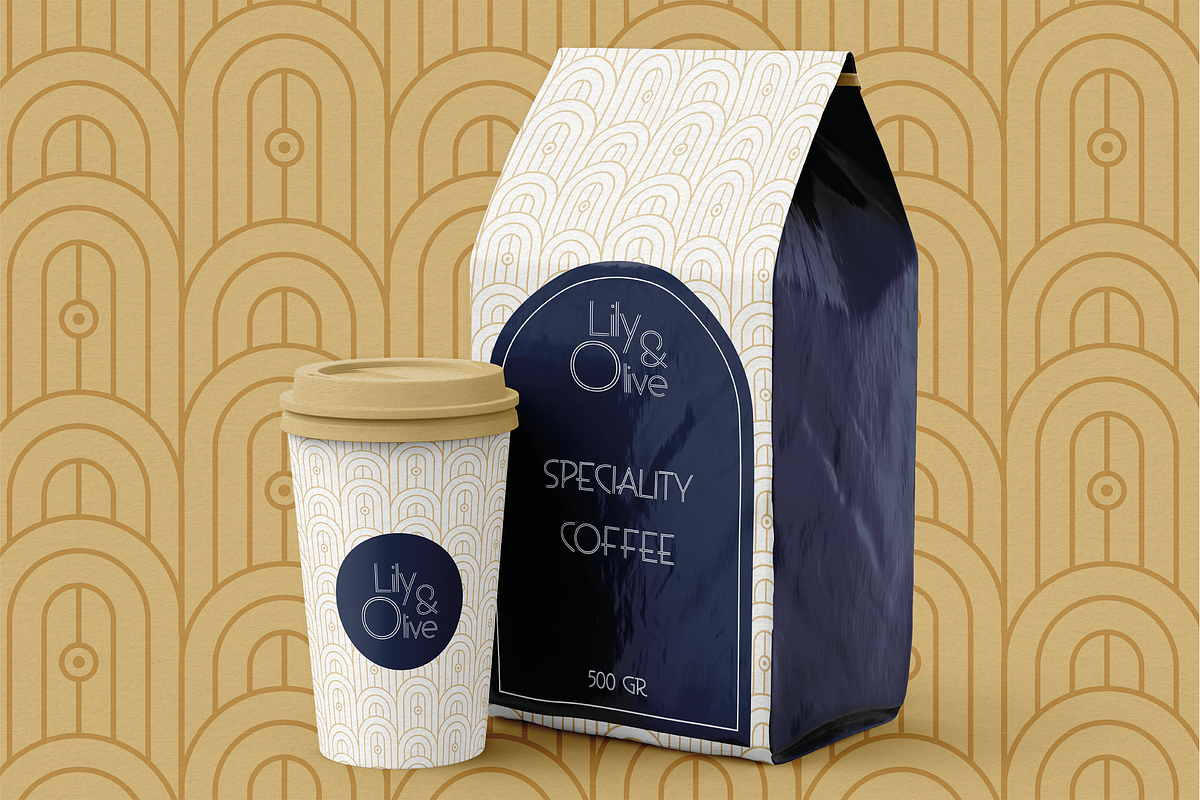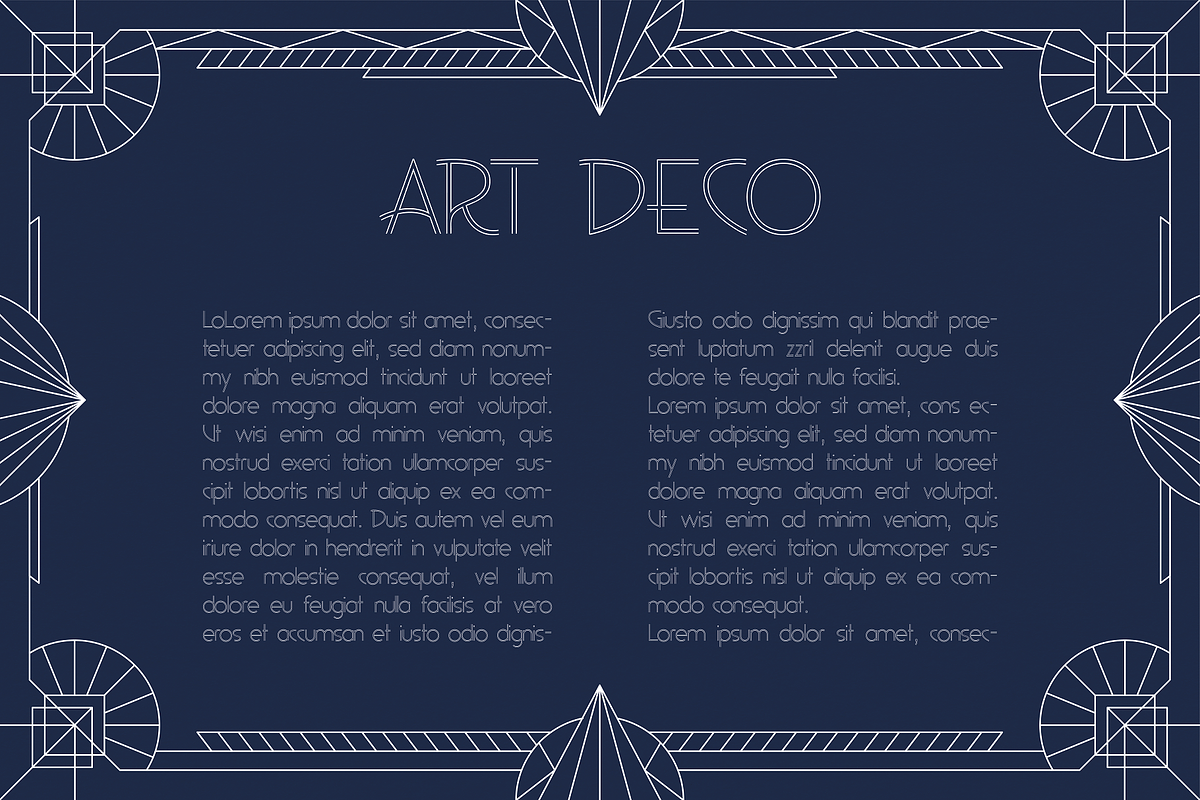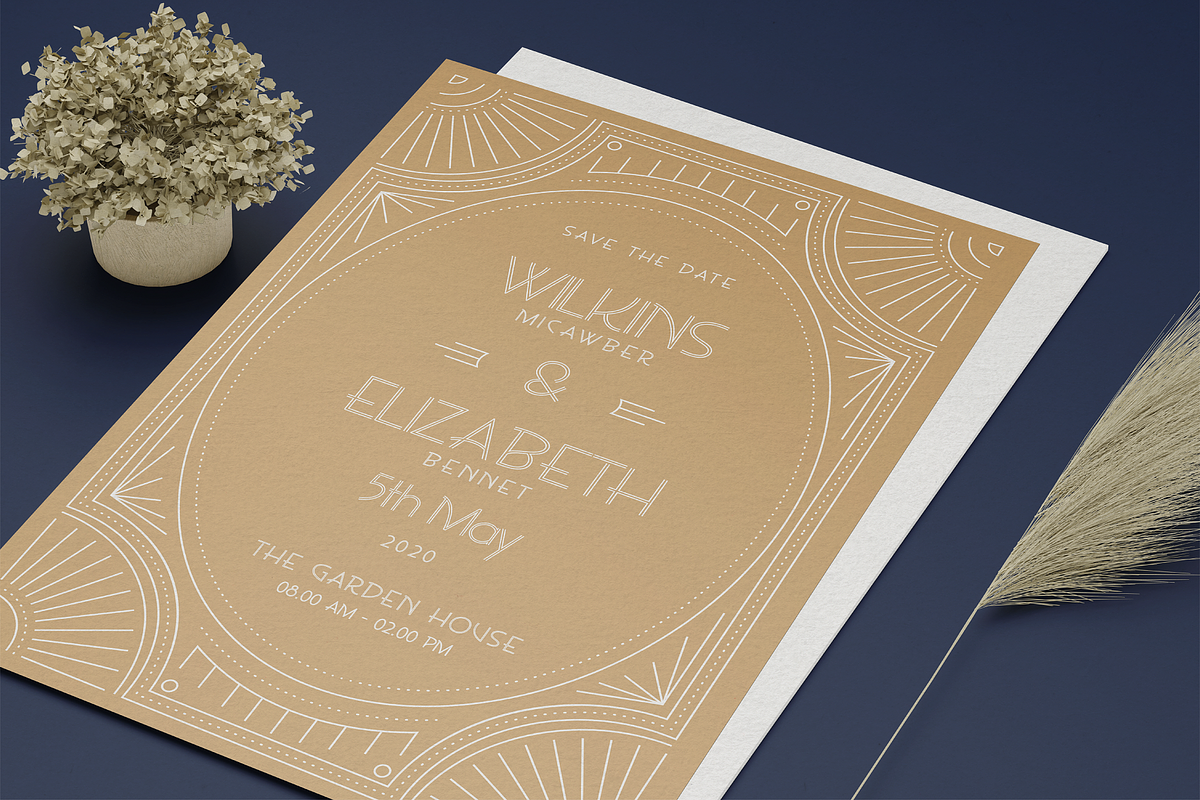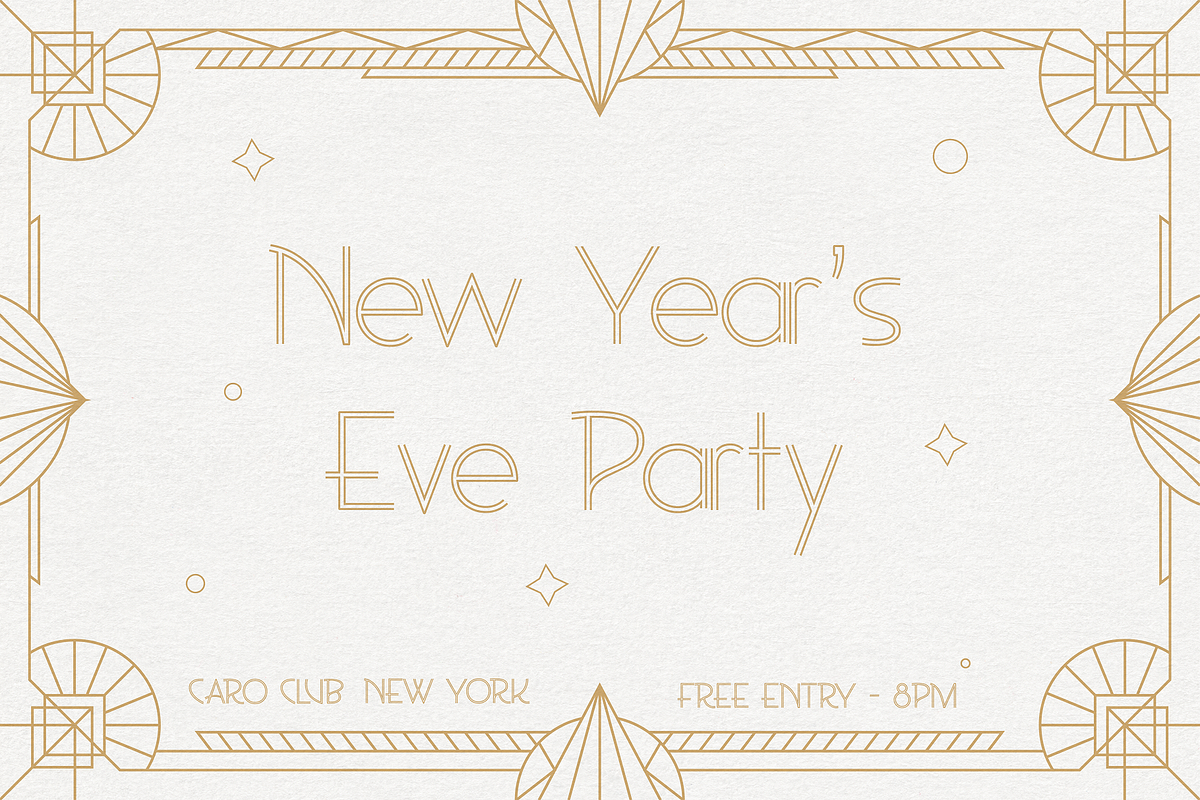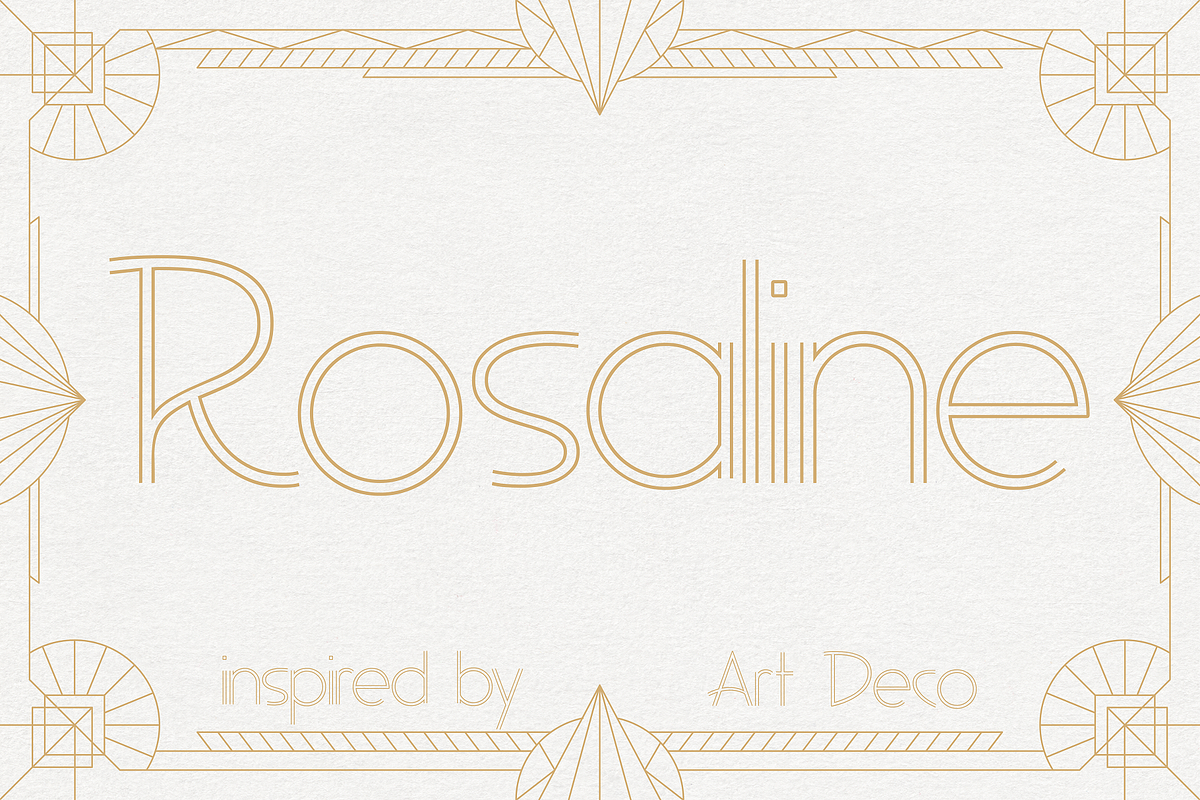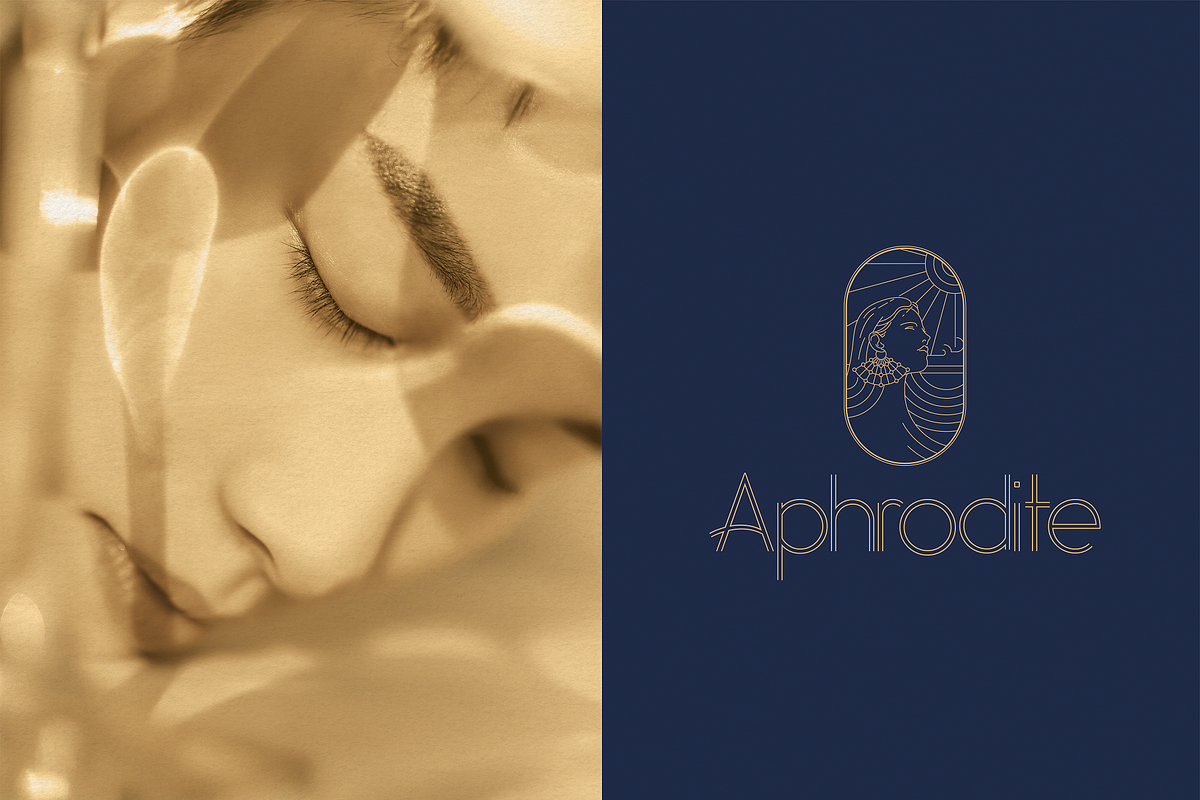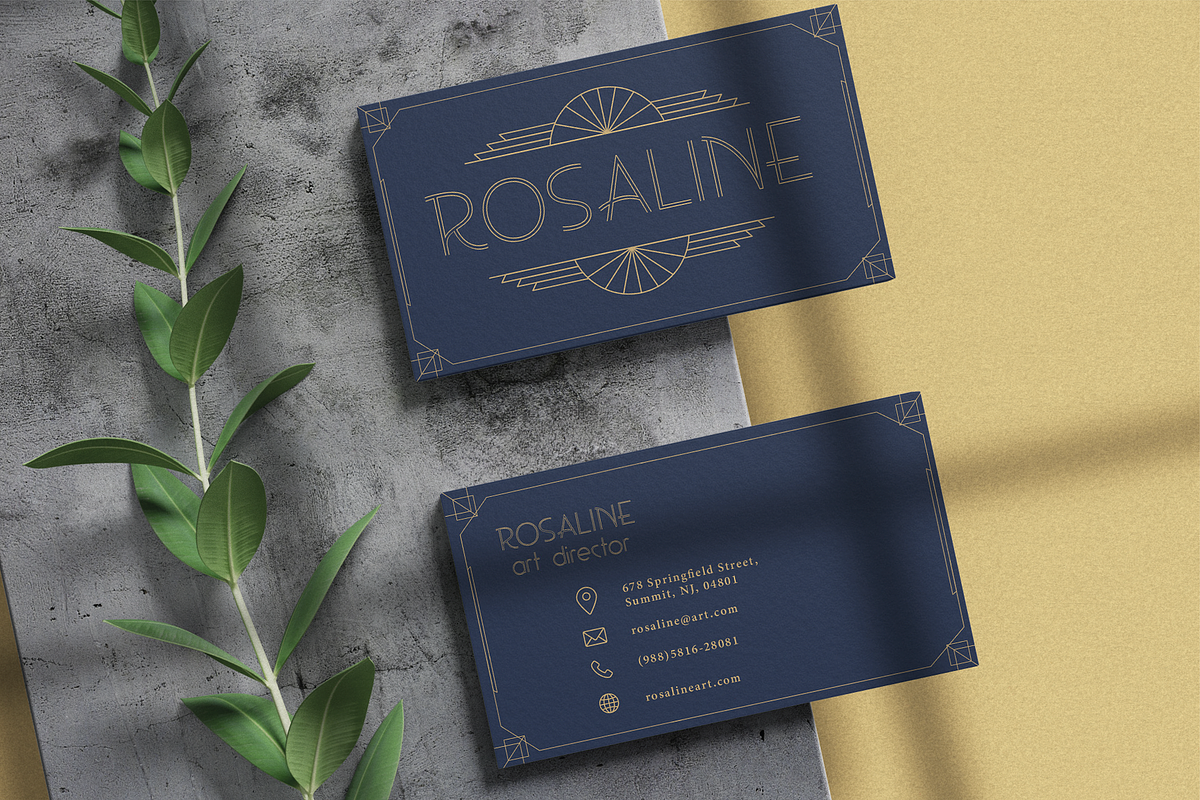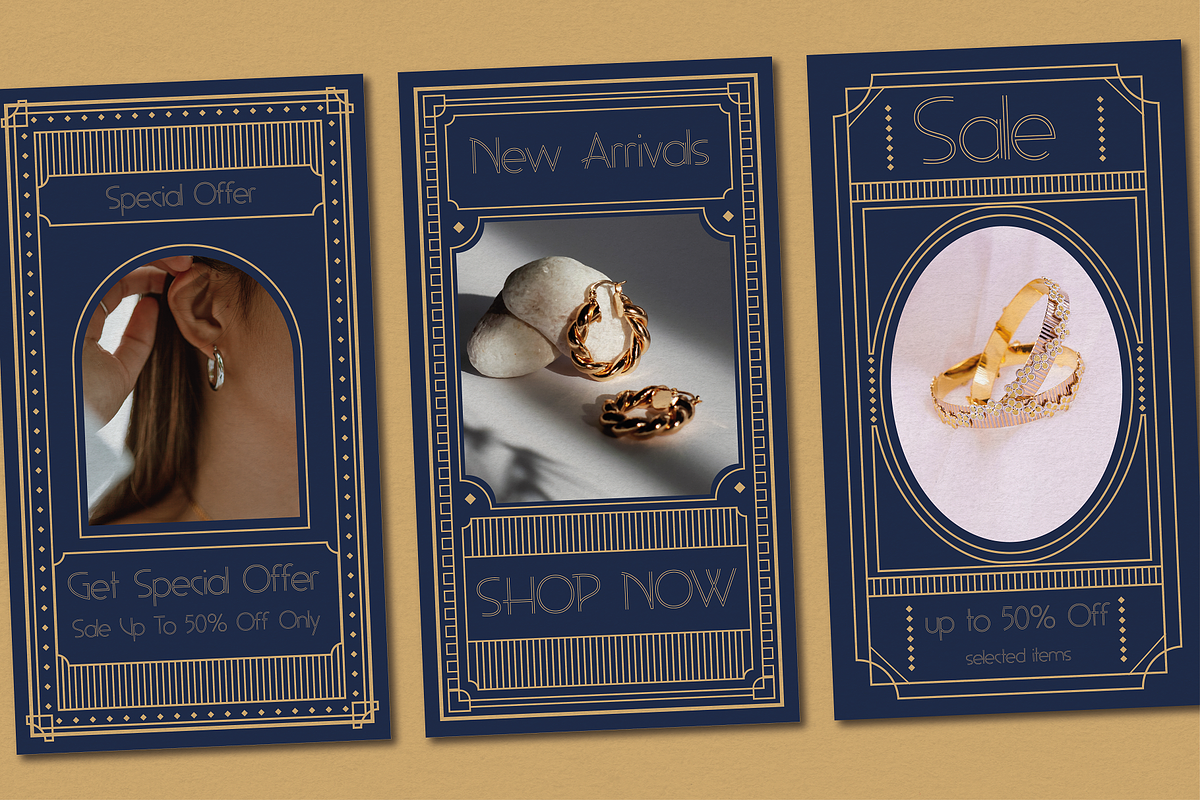
Rosaline - Art Deco Display
Rosaline is a beautiful outline typeface inspired by the glorious Art Deco era of the 1920s. This gorgeous font is strong, decorative, and classy. You can use it for vintage projects as well as modern design projects like packaging, apparel, posters, branding, prints, weddings, and more. Create your Art Deco masterpiece today with Rosaline.